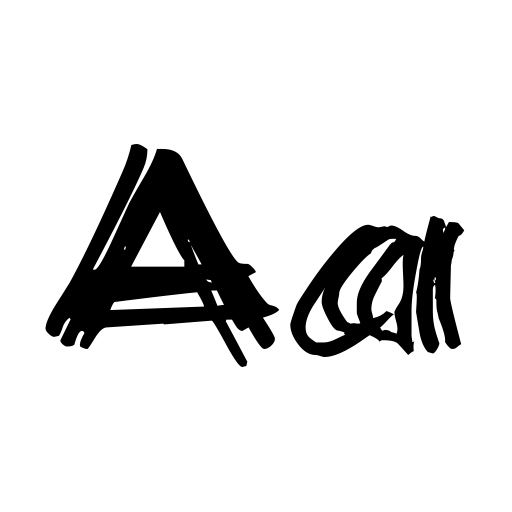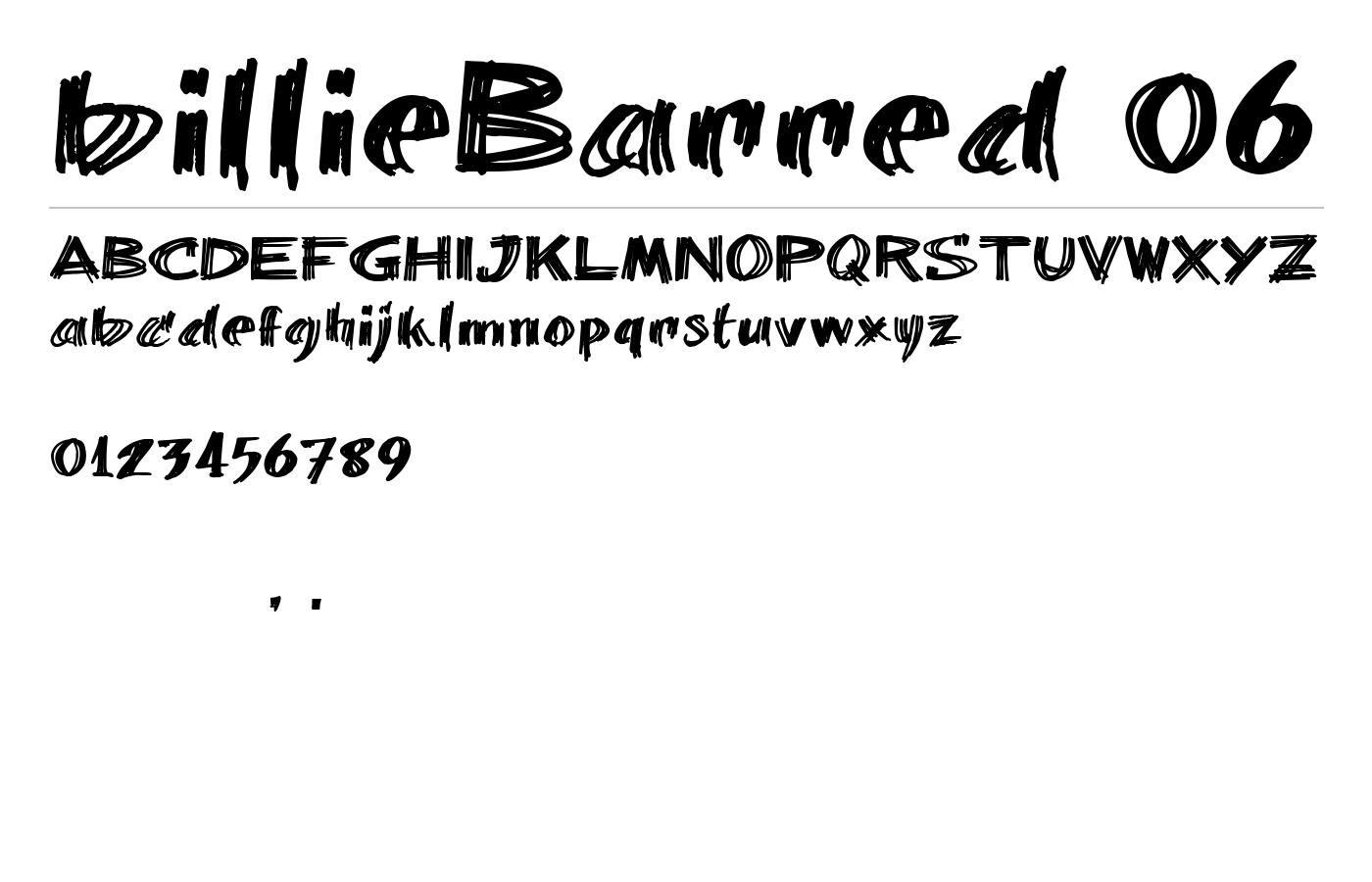
billieBarred 06 is a bold, expressive handwritten font with a rough, textured look that adds a lively, artistic feel to any design. Its irregular strokes and playful letterforms make it ideal for creative projects, casual headlines, and branding that seeks a hand-crafted, energetic vibe. This font works best in posters, packaging, and logos where personality and a handmade touch stand out.
billieBarred 06 Font
About billieBarred 06 Font
| Font family | billieBarred 06 Font |
| Designer | J O E B O B graphics |